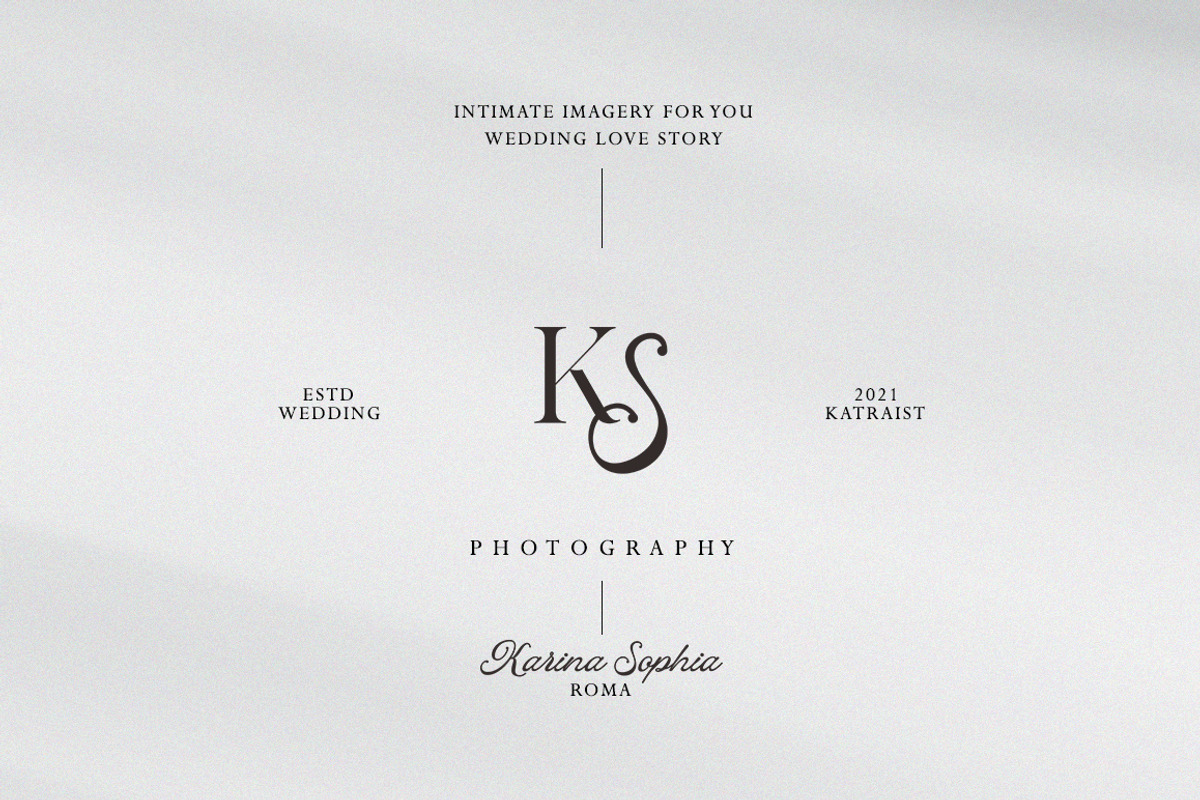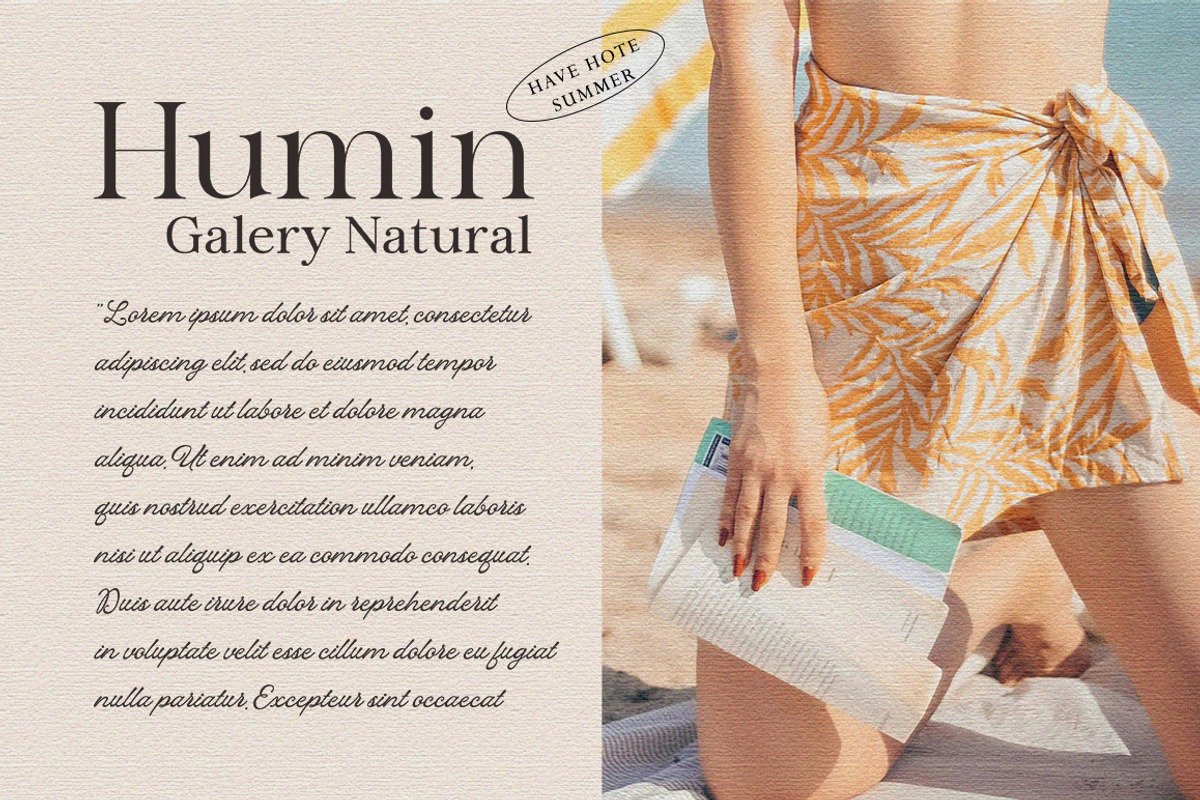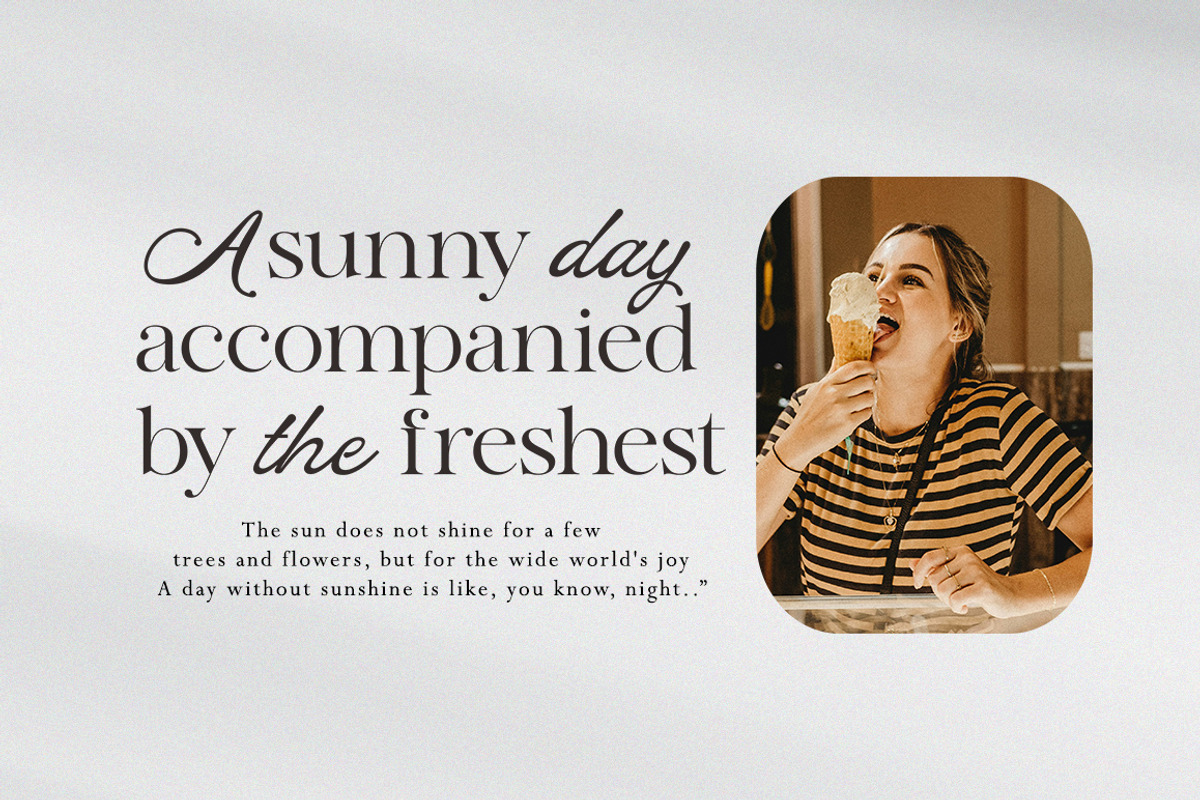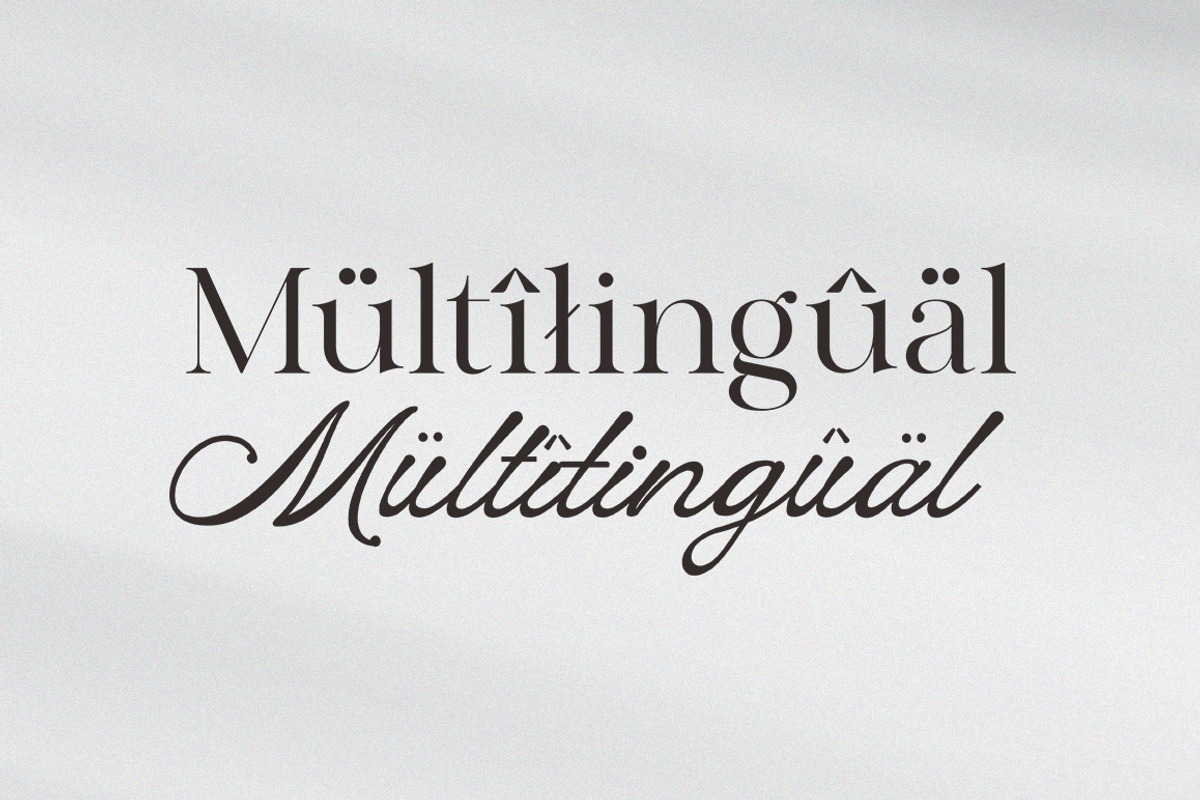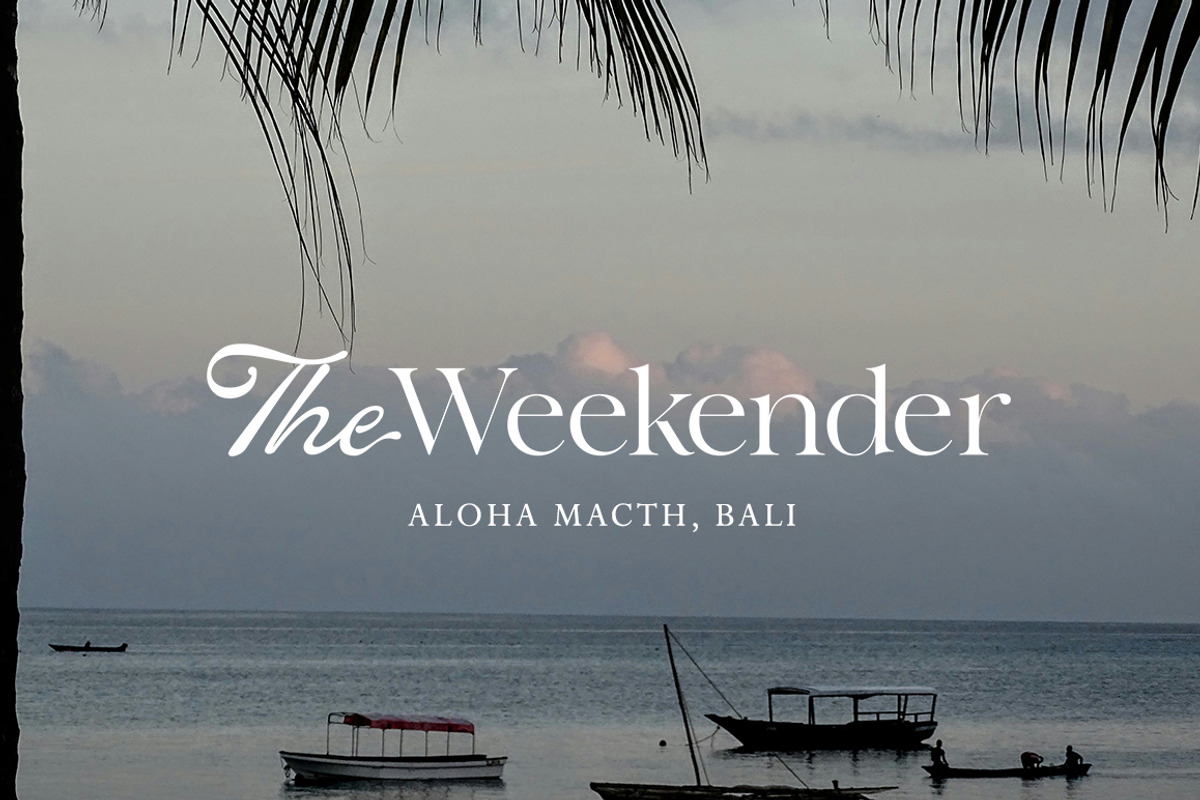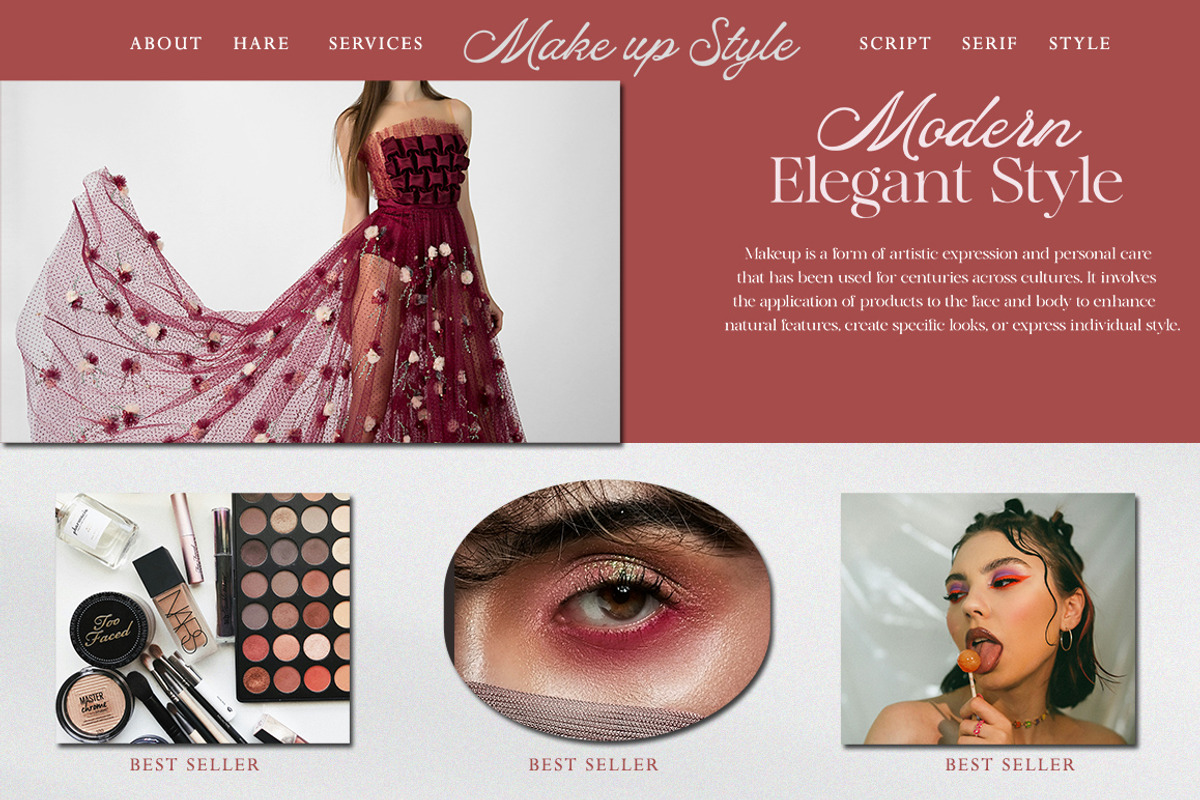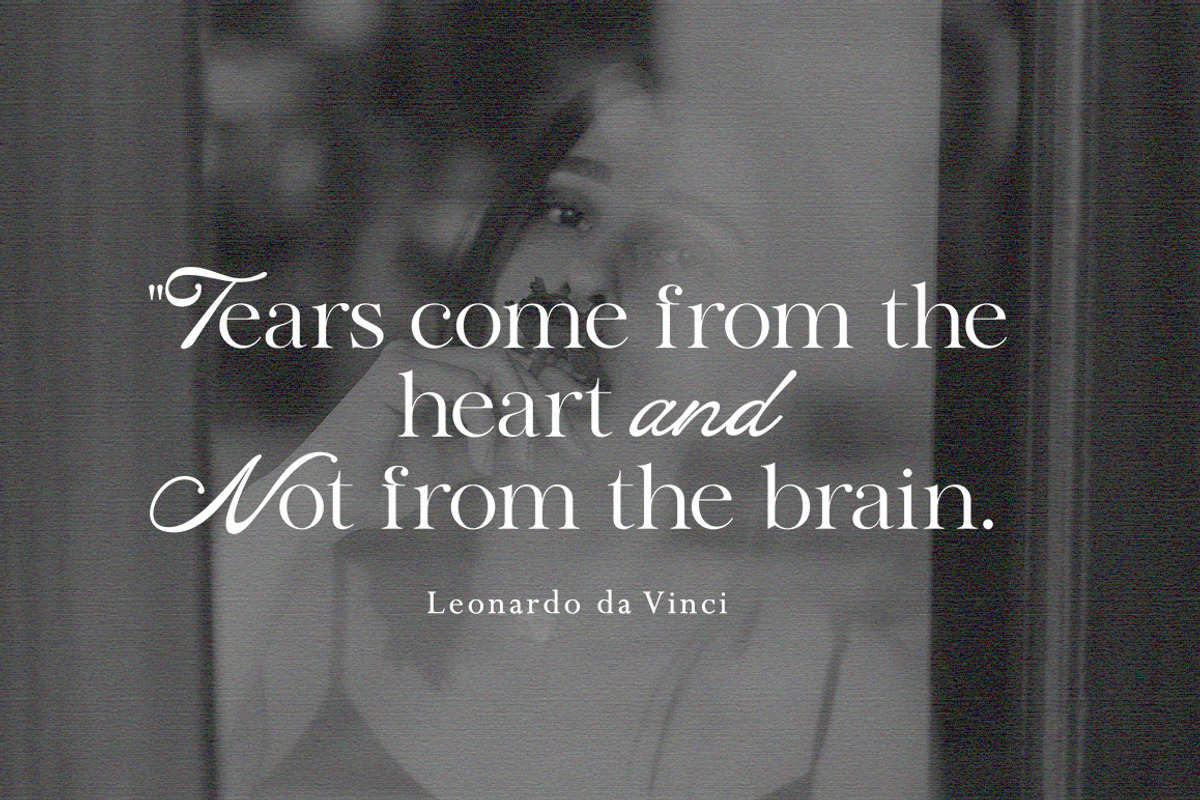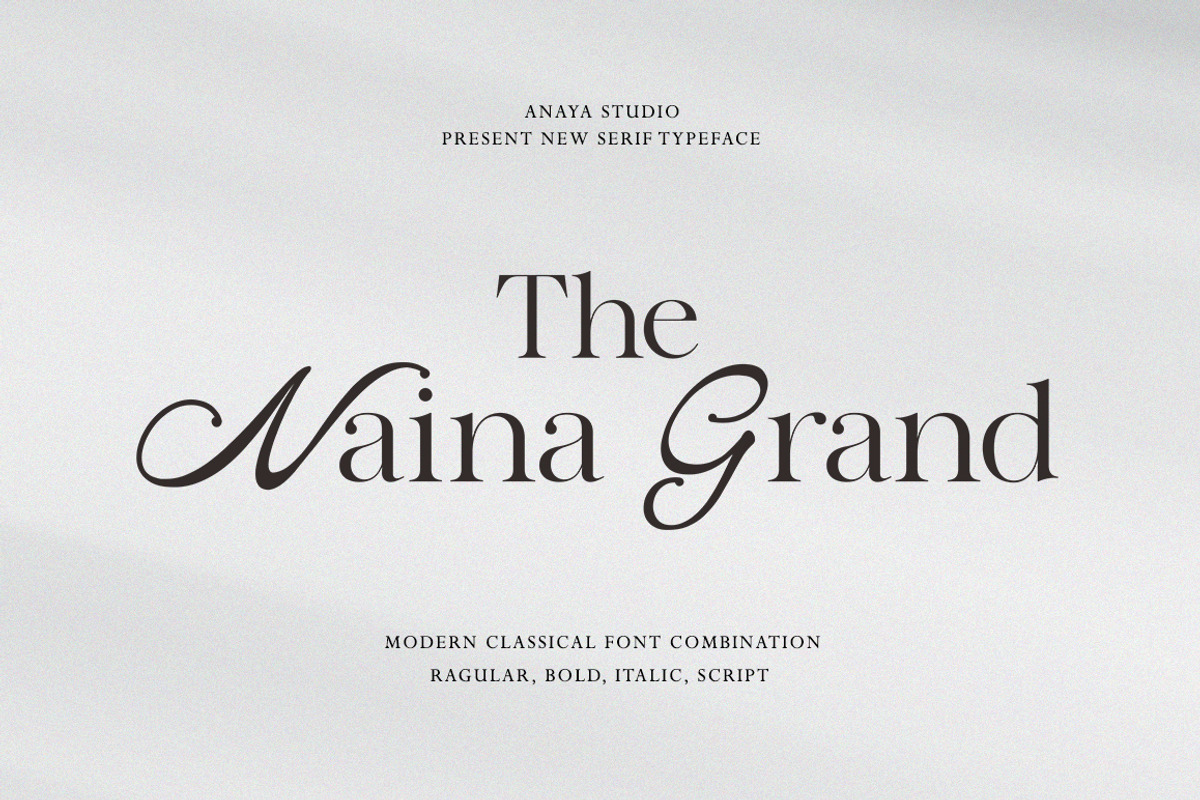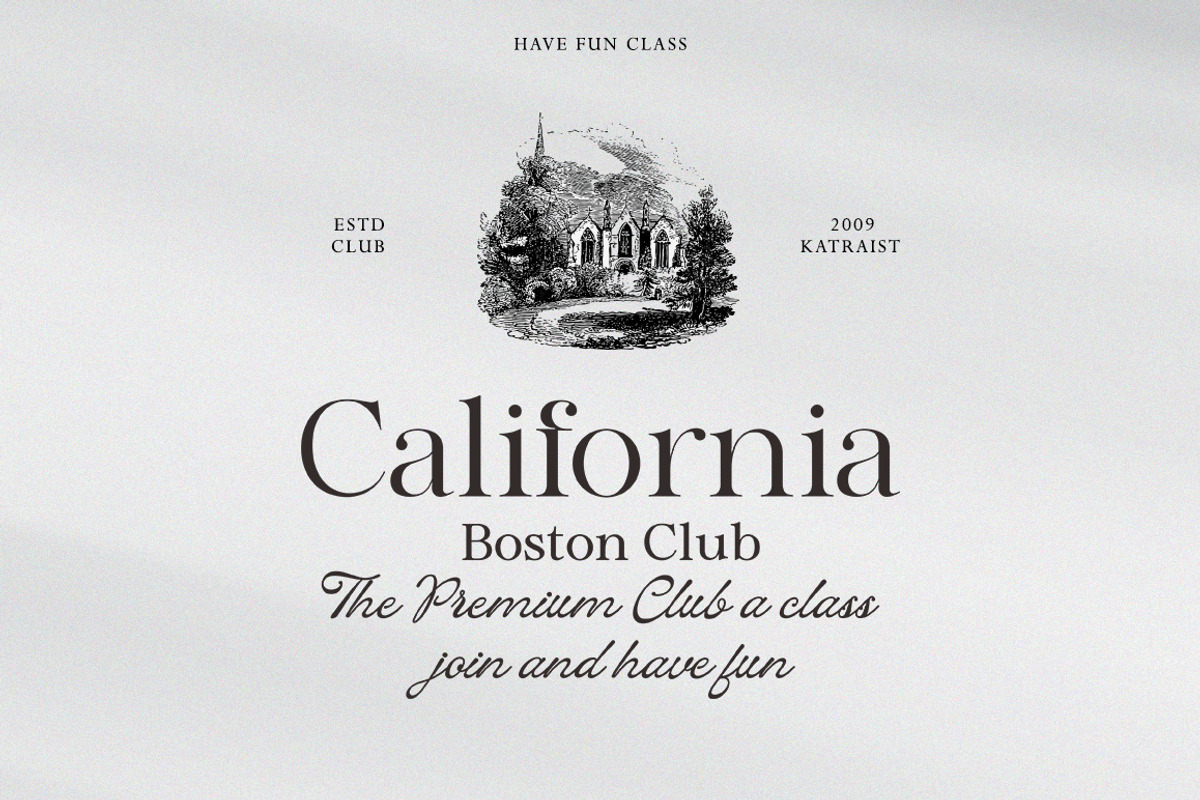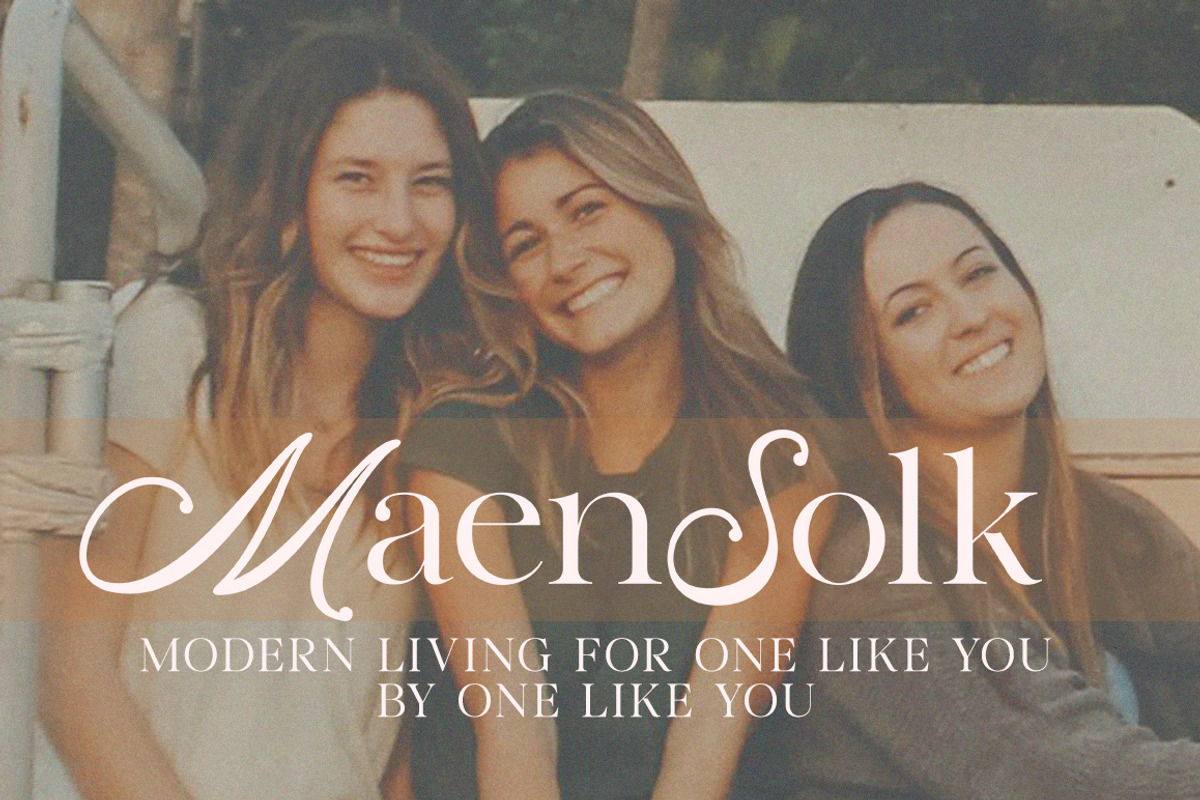
The Naina Grand
The Naina Grand is a brand new, unique & nostalgic typeface that I loved so much that I wanted to make it very personal, which is why Naina Grand is in the name. This font family includes 4 font options, regular, italic, bold, and Script. The main font is a serif, which in regular and italic looks cool, graceful & elegant, but in bold and Script it gets some extra curves so it also feels nostalgic and vintage at the same time.
It also includes full language support, punctuation, numbers, and detailed instructions on how to use the alternate fonts in most applications on your computer, as well as in Canva.
I invite you to check out the preview images, and I hope you will be immersed in my vision for this creative typeface that, I am sure, will work for all kinds of interesting projects you might be working on this year.